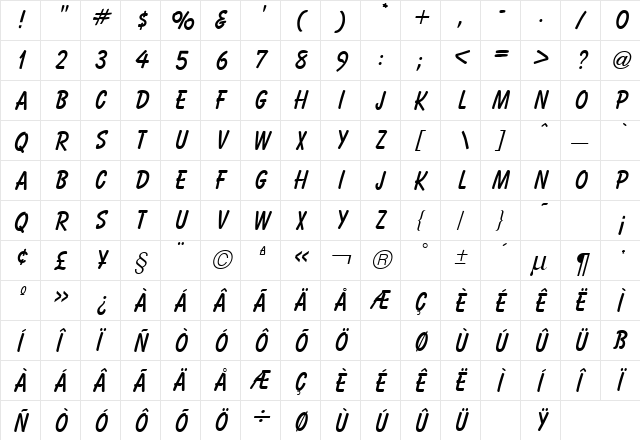
Balloon Bold Regular
Design Context for Balloon Bold Typeface
Balloon Bold offers clean, dependable letterforms without strong stylistic allegiance, making it a practical choice for designers who need flexibility. Its bold stroke weight gives it real presence on the page.
Pro Tip: Use Balloon Bold in both headline and body roles to test its range before committing to a single application.